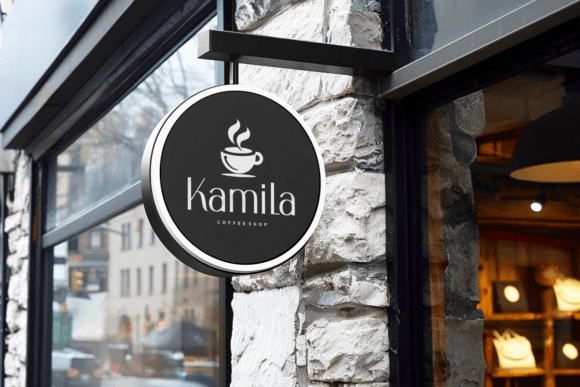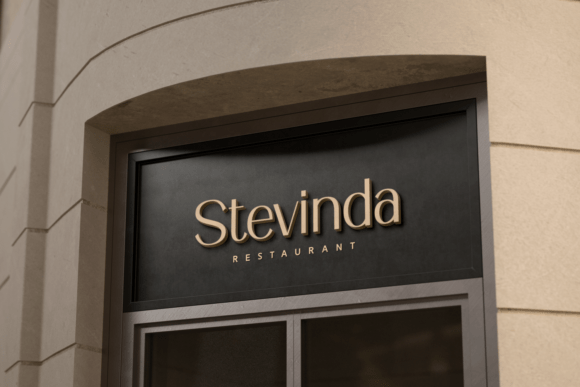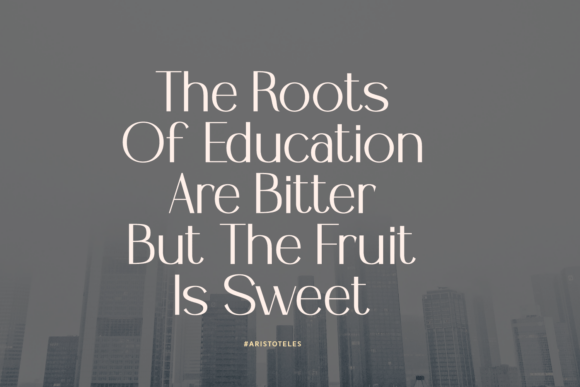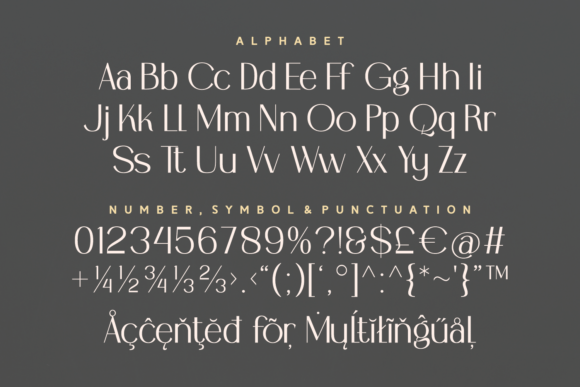
Introduction to Correct Answer Font
A promotional image for “Correct Answer,” an elegant sans serif font.
The font itself is a high-contrast sans serif, giving it a sophisticated and clear appearance ideal for corporate branding, headlines, and business communications .
Key Features of Correct Answer Font